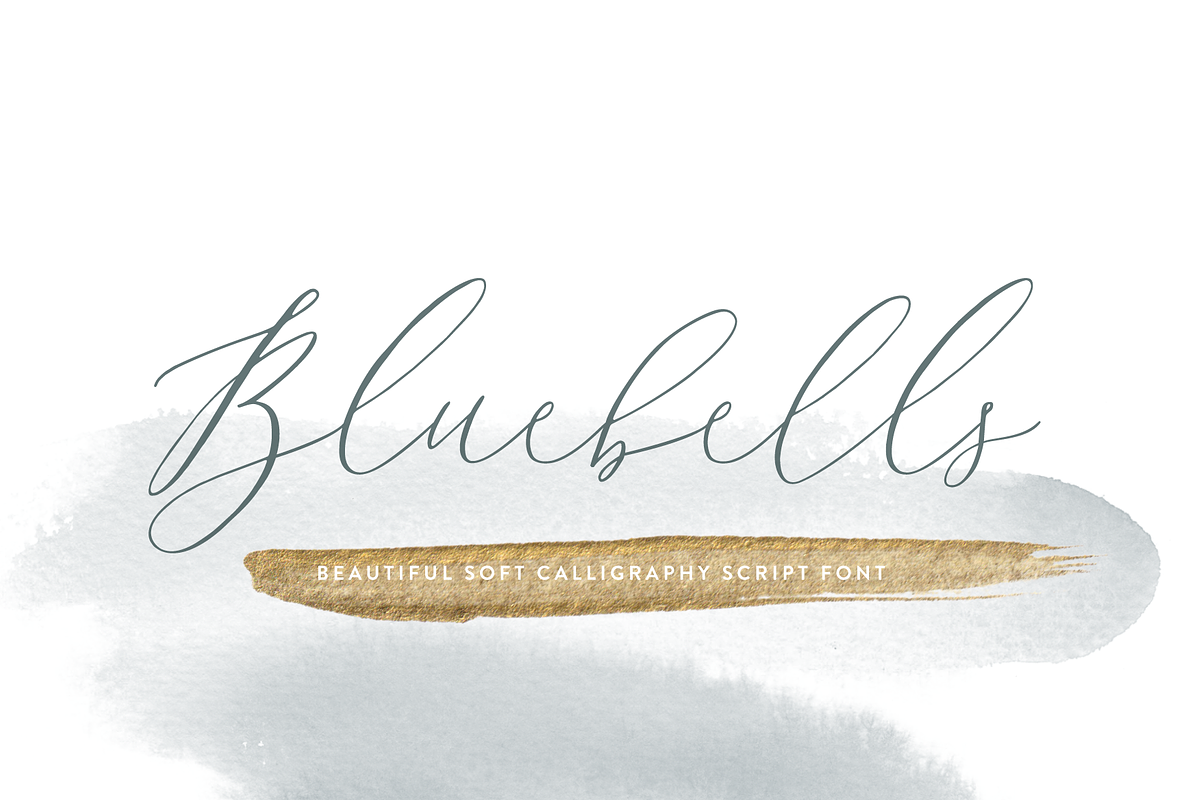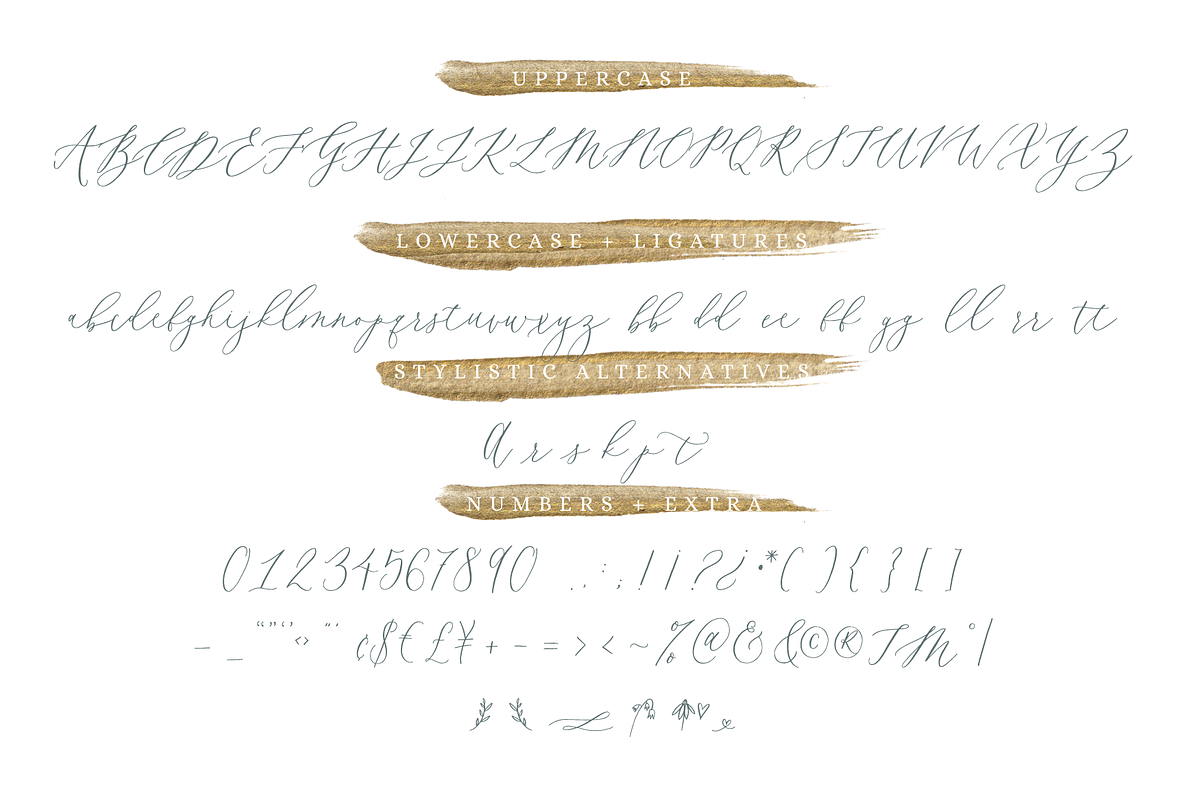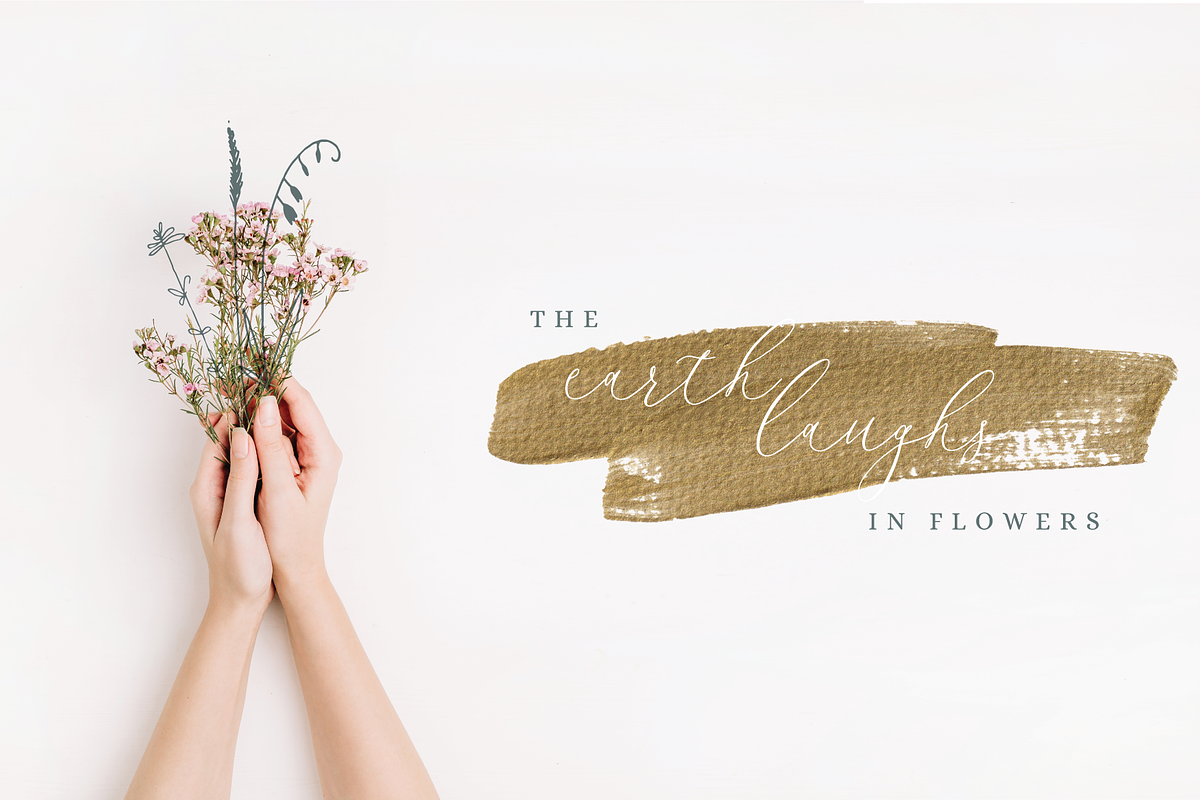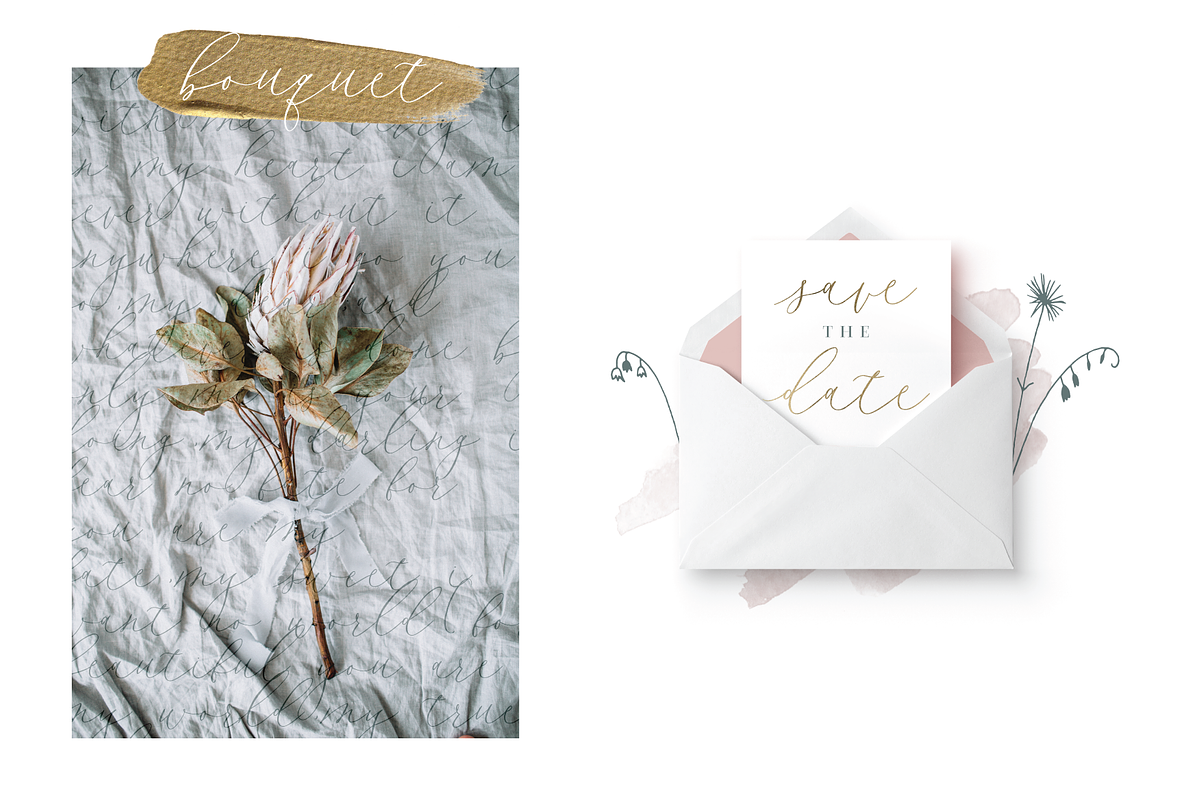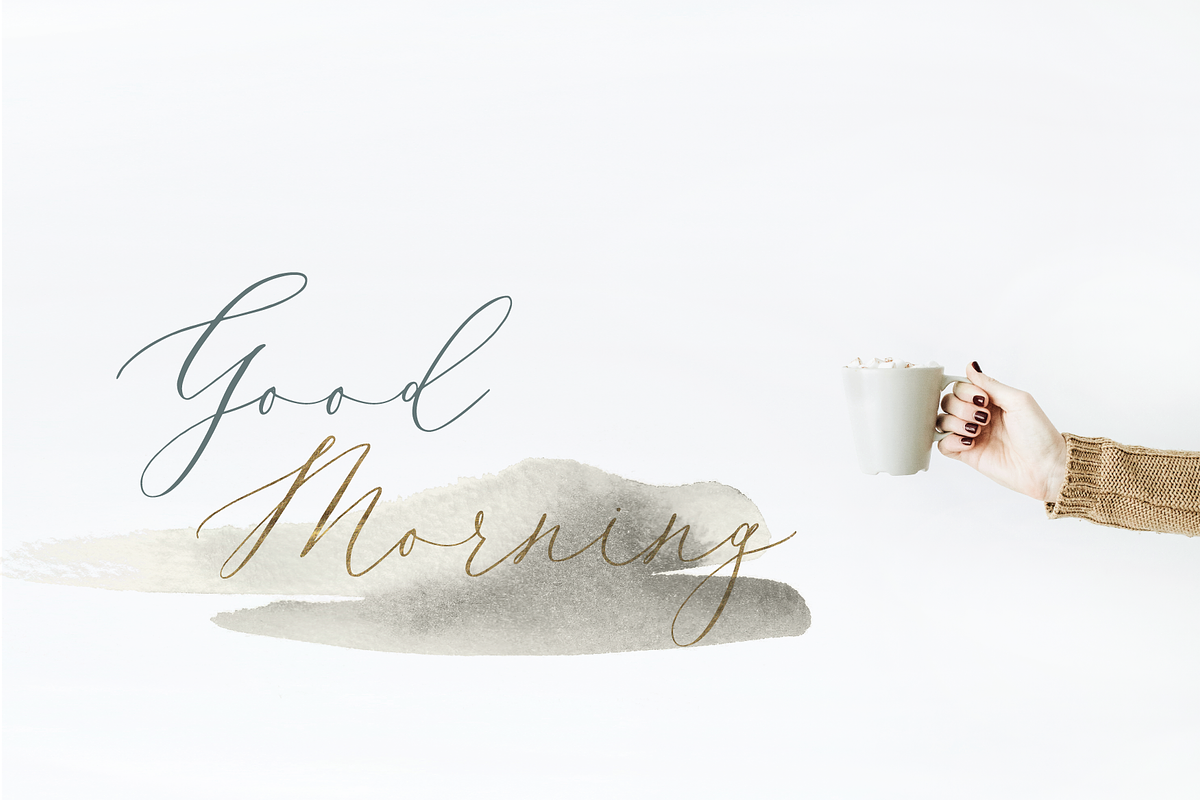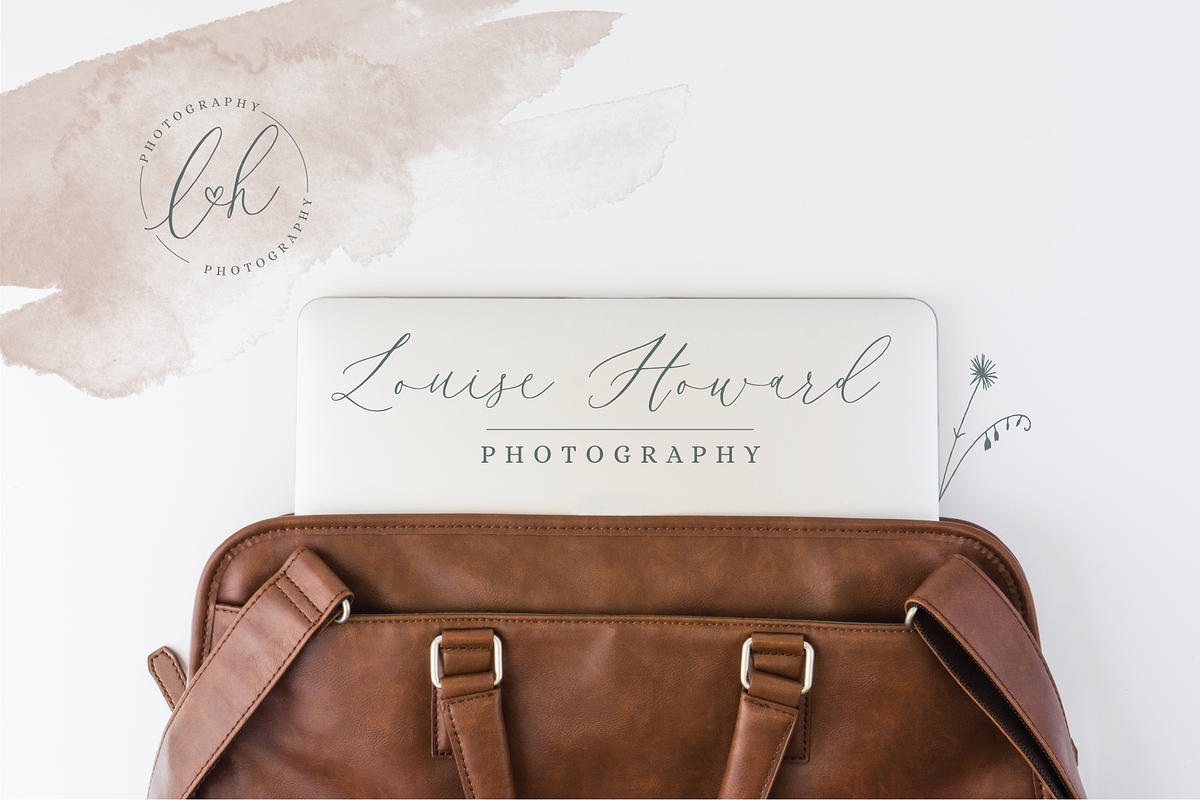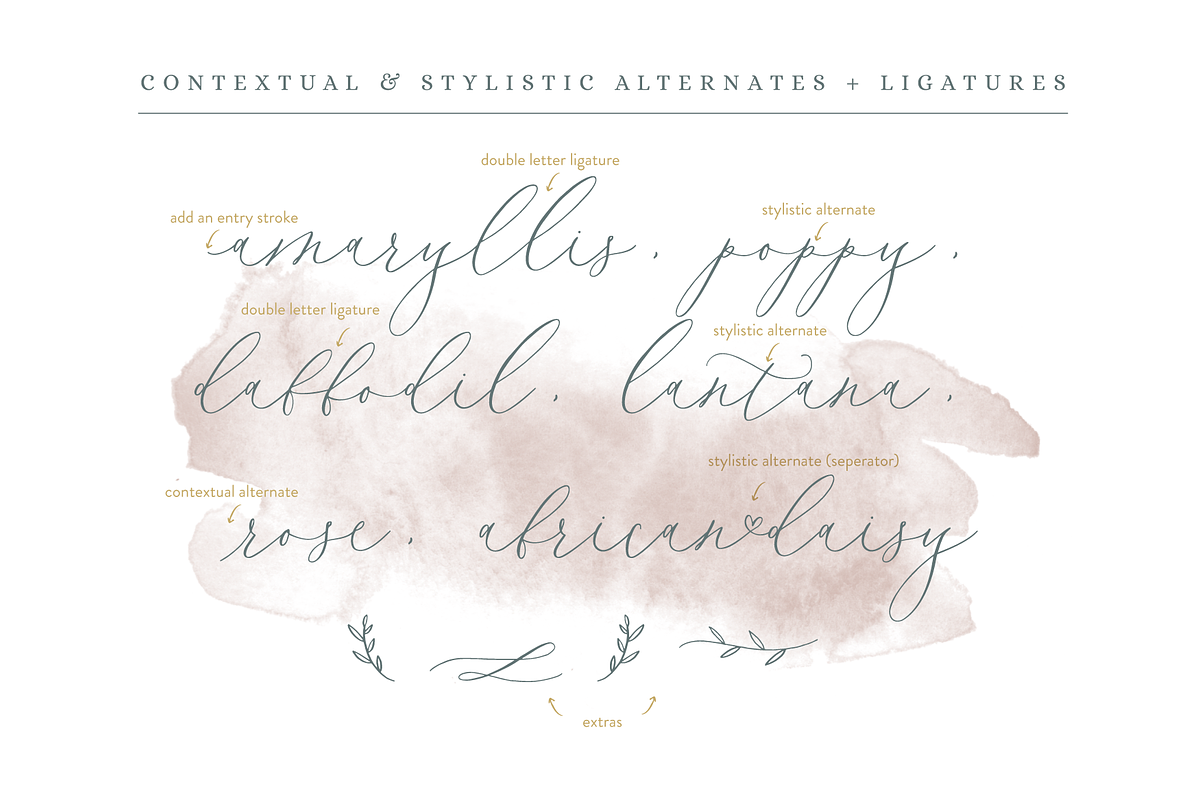
Bluebells Script
Introducing Bluebells Script font. A totally swoon worthy romantic font. Perfectly suited for a diversity of design projects, including logos, branding, wedding designs and social media posts.
Bluebells include multilingual support for All Western Europe languages, as well as Afrikaans.